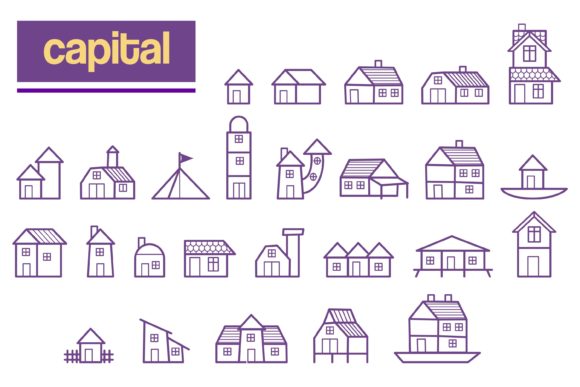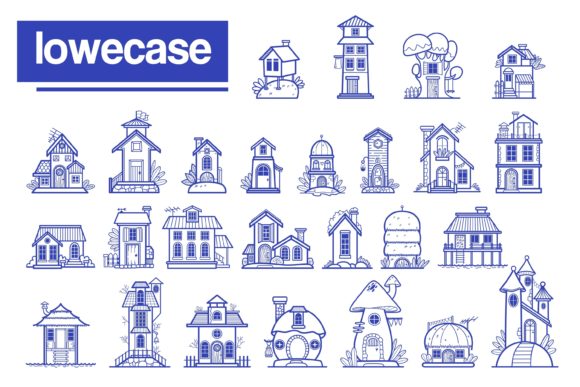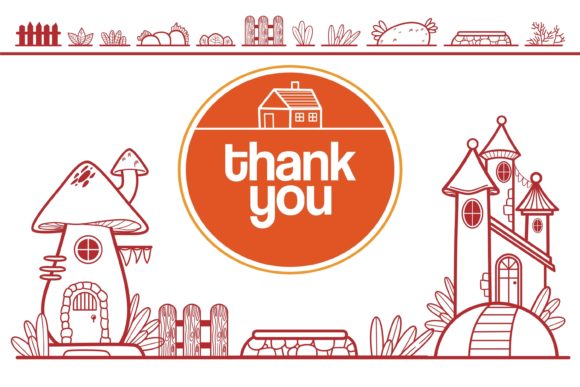
Cozy Home Font
About Cozy Home Font
Cozy Home is a sweet and unique dingbats font that exudes a warm and inviting vibe. With its distinct style, this font is incredibly fitting for a wide range of designs, making it a versatile choice for various projects.
Whether you’re working on crafting projects, digital designs, presentations, or making greeting cards, Cozy Home adds a special touch to your creations. Its charming and cozy aesthetic creates a comforting atmosphere that resonates with viewers.
The unique design of Cozy Home allows it to stand out and capture attention. Each glyph is carefully crafted to convey a sense of coziness and comfort, making it a perfect choice for designs related to home decor, lifestyle, family, or any project that aims to evoke warmth and nostalgia.
When used in crafting projects, Cozy Home can add a delightful element to handmade items such as cards, scrapbooks, and DIY decorations. Its distinct style brings a touch of personality and charm to these creations, making them even more special and memorable.
In digital designs and presentations, Cozy Home can be used to create eye-catching headlines, titles, or decorative elements. Its unique letterforms and intricate details add visual interest and enhance the overall aesthetics of your designs.
For greeting card making, Cozy Home offers a delightful option to incorporate into your designs. Whether it’s a birthday card, thank you note, or holiday greeting, this font adds a cozy and heartfelt touch to your messages, making them more meaningful and memorable.
Overall, Cozy Home is a sweet and unique dingbats font that is perfect for a wide range of projects. Its distinct style and warm aesthetic make it fitting for crafting, digital designing, presentations, and greeting card making. Let the cozy charm of Cozy Home bring warmth and delight to your designs!